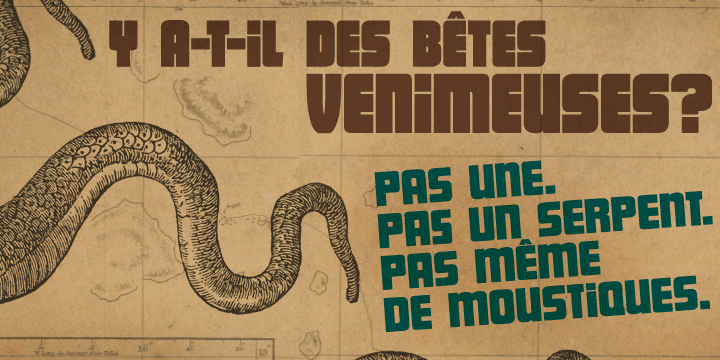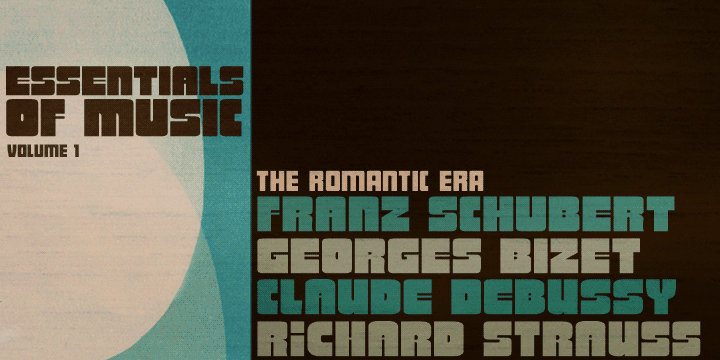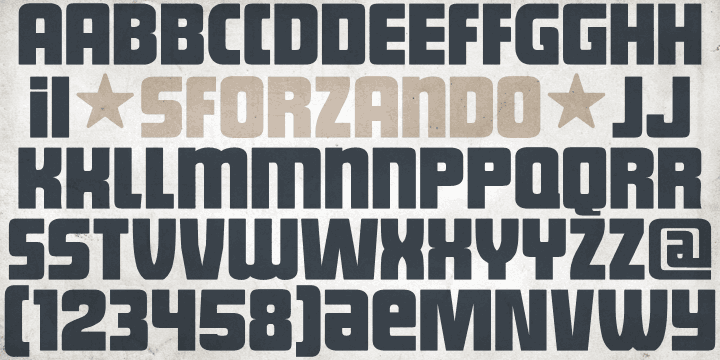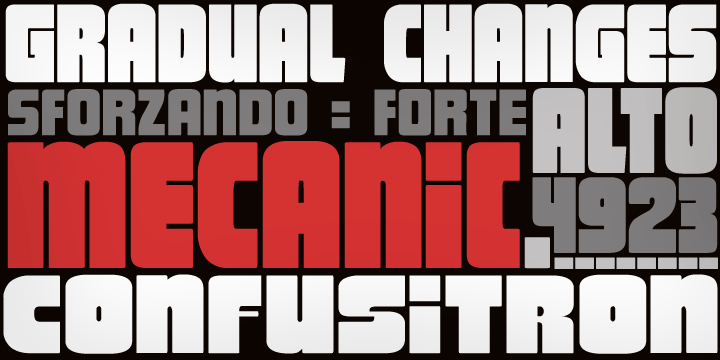
Sforzando is a display font family. This typeface has three styles and was published by PintassilgoPrints.
Sforzando is a striking display typeface available in three variations. Each one is an all caps alphabet that brings two alternatives for each letter, amplifying your design choices. It comes with a small but handy set of alternates that help create that special, unusual touch.
Vigorous and versatile, Sforzando is an excellent option for a wide range of applications.